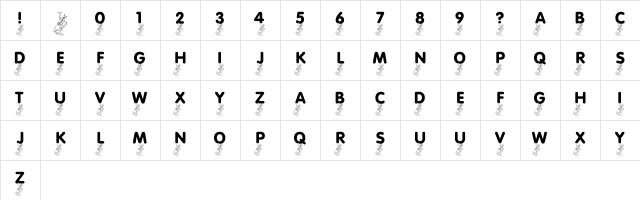
LMS Picnic Parade Regular Free Font
LMS Picnic Parade Regular
Design Context for LMS Picnic Parade
LMS Picnic Parade is a composed and adaptable typeface that performs quietly and consistently across a wide range of design contexts.